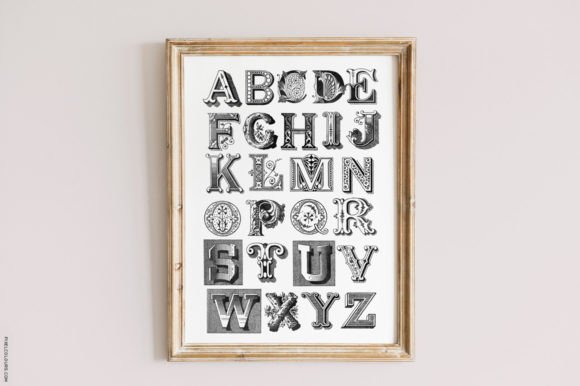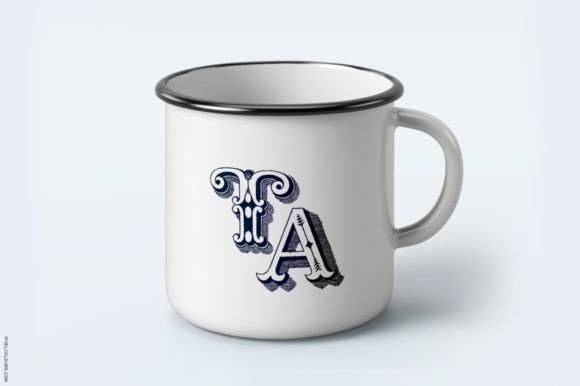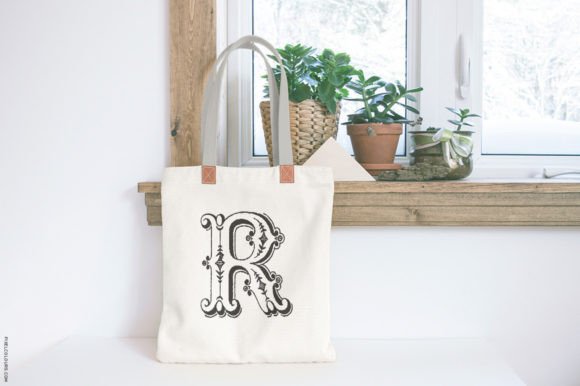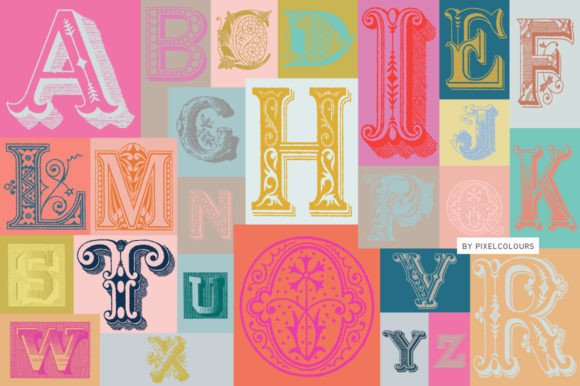
The Charm of Antique Font: Elevate Your Designs with Vintage Elegance
I’ll never forget the time I was working on a design project for a client who wanted a vintage-style monogram on a t-shirt. I scoured the internet for the perfect font, but nothing seemed quite right. That was until I stumbled upon the Antique Ornaments Alphabet Font. It was love at first sight! ✨ The intricate details, the classic charm, and the versatility of this font made it the perfect fit for my project. In this article, I’ll share with you why I’m obsessed with this font and how you can use it to elevate your designs.
I’ve had the pleasure of working with the Antique Ornaments Alphabet Font for a while now, and here’s what I think:
- ✅ Extremely versatile: perfect for monograms, logos, and decorative text
- ✨ Beautifully crafted: intricate details and classic charm
- ⚠️ Limited to uppercase letters (but that’s not a deal-breaker for me!)
- 🤔 Can be a bit tricky to pair with other fonts (but that’s a challenge I’m happy to take on!)
The Antique Ornaments Alphabet Font was inspired by the ornate, vintage designs of the 19th century. Imagine intricate metalwork, beautifully crafted wooden furniture, and delicate porcelain. The font’s creator wanted to capture the essence of this era and bring it to life in a modern, digital format.
| Font Name | Antique Font |
| Author | pixelcolours |
| Is the font suitable for body text? | No, the font is best used for headlines, titles, and decorative text. |